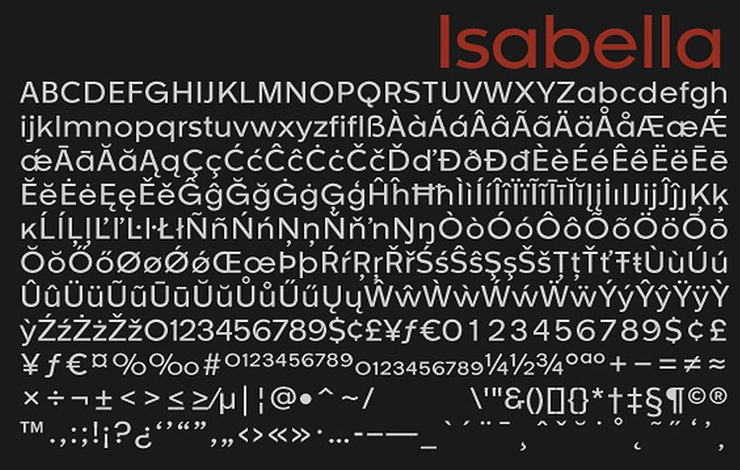
Churchward Isabella is a versatile and functional sans-serif font family consisting of five weights: Light, Regular, Medium, Bold, and Extra Bold. It was published by BluHead Studio.
Created in the 1980s by Joseph Churchward, a renowned type designer from New Zealand, this font is known for its simple geometric shapes, making it highly legible for both digital and print mediums.
The Churchward Isabella family is an excellent choice for typography that needs to be readable at small sizes, such as body text, while also being suitable for headlines and display use.
Its clean lines and modern look make it an ideal option for branding, posters, banners, editorial design, and web design projects.
It features a tall x-height, generous spacing, and clear letterforms, making it easy to read even at small sizes.
One of the benefits of Churchward Isabella is its excellent readability in both print and digital environments.